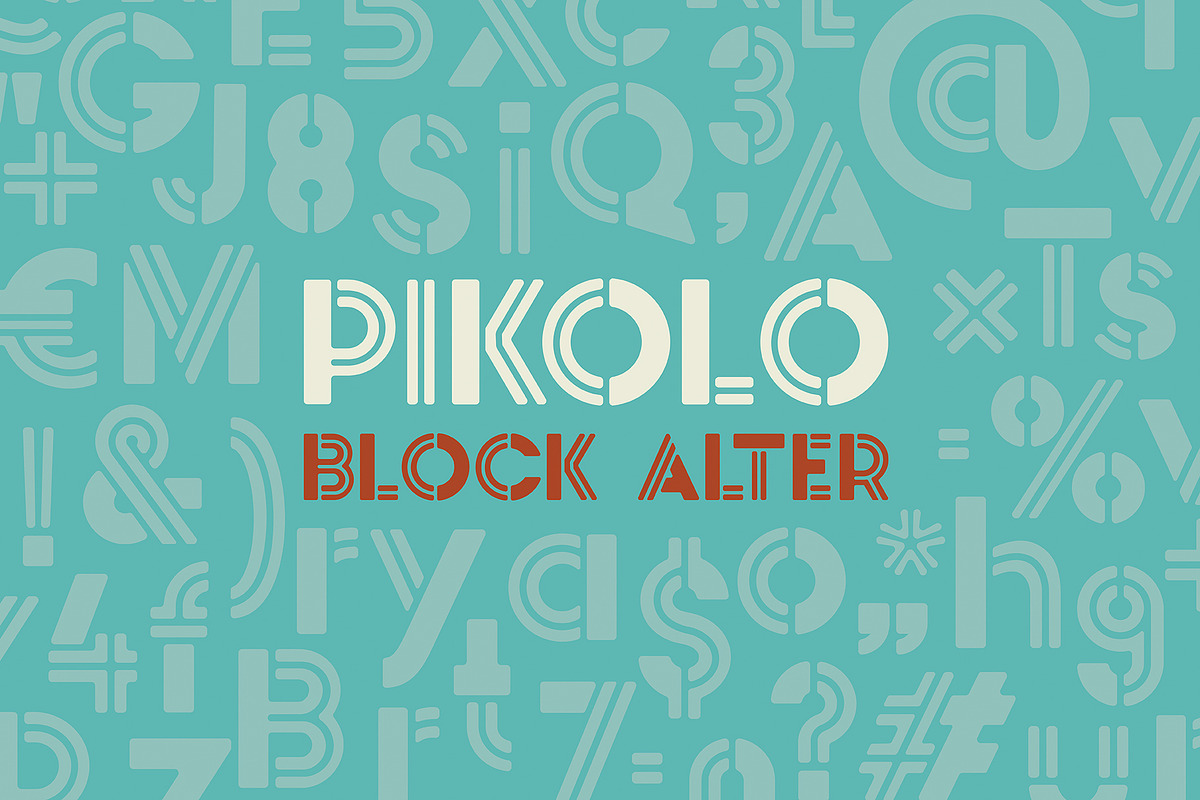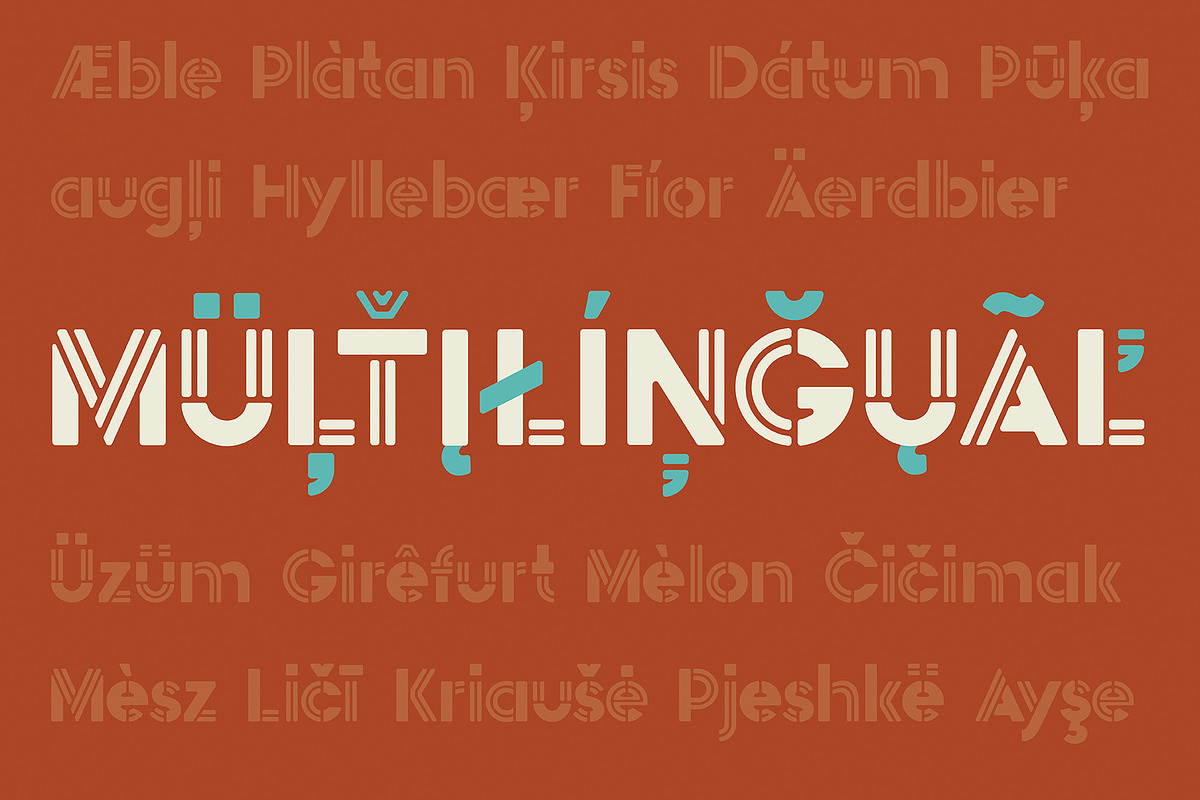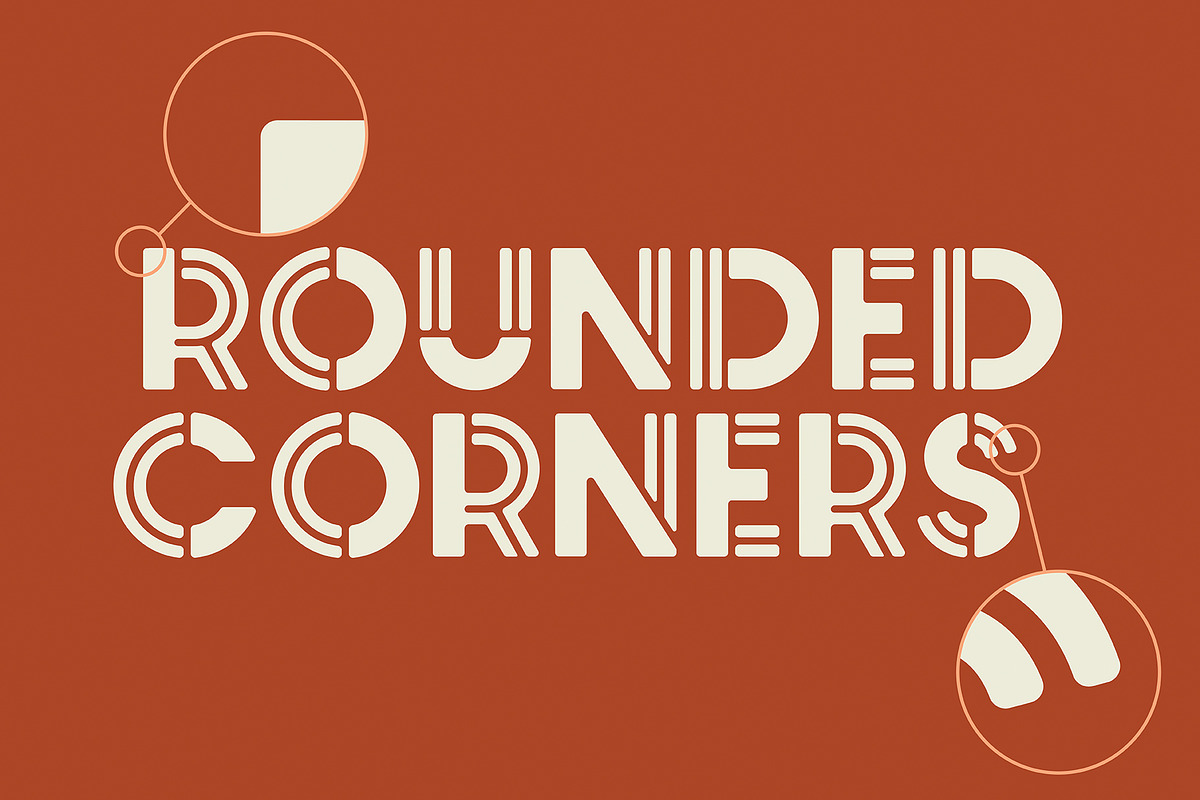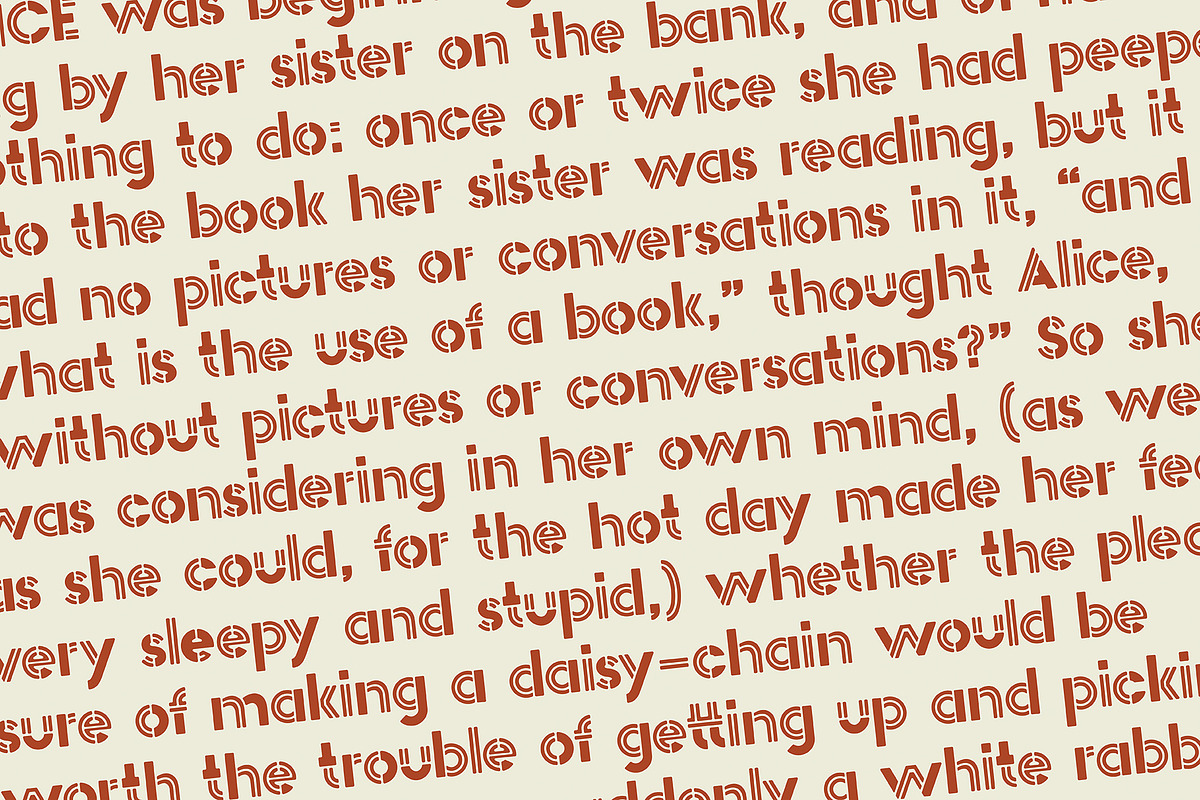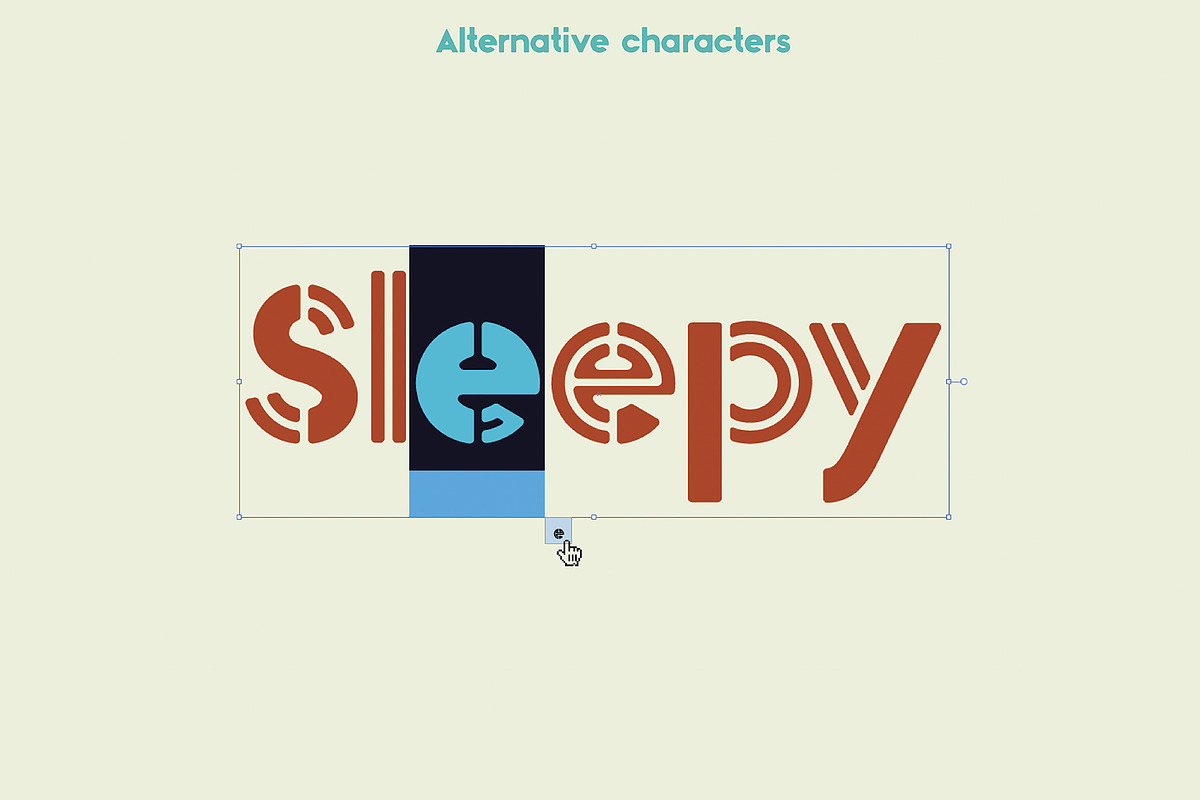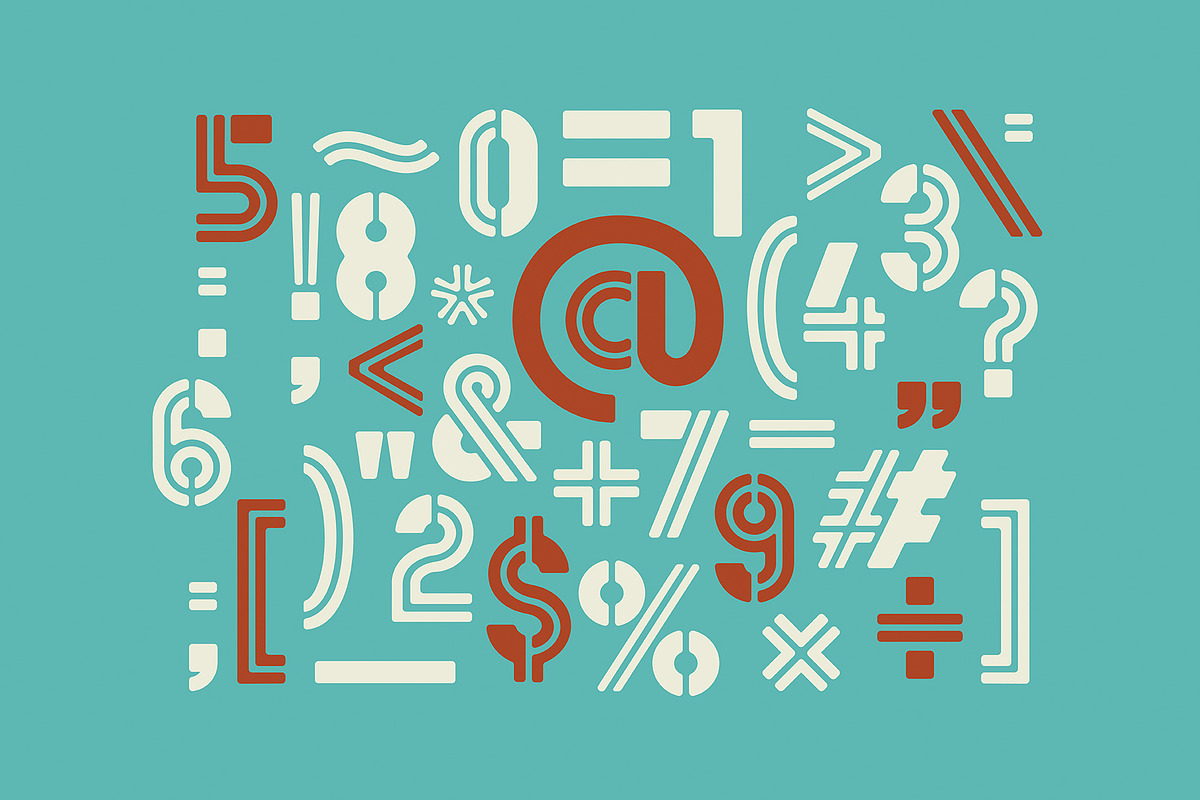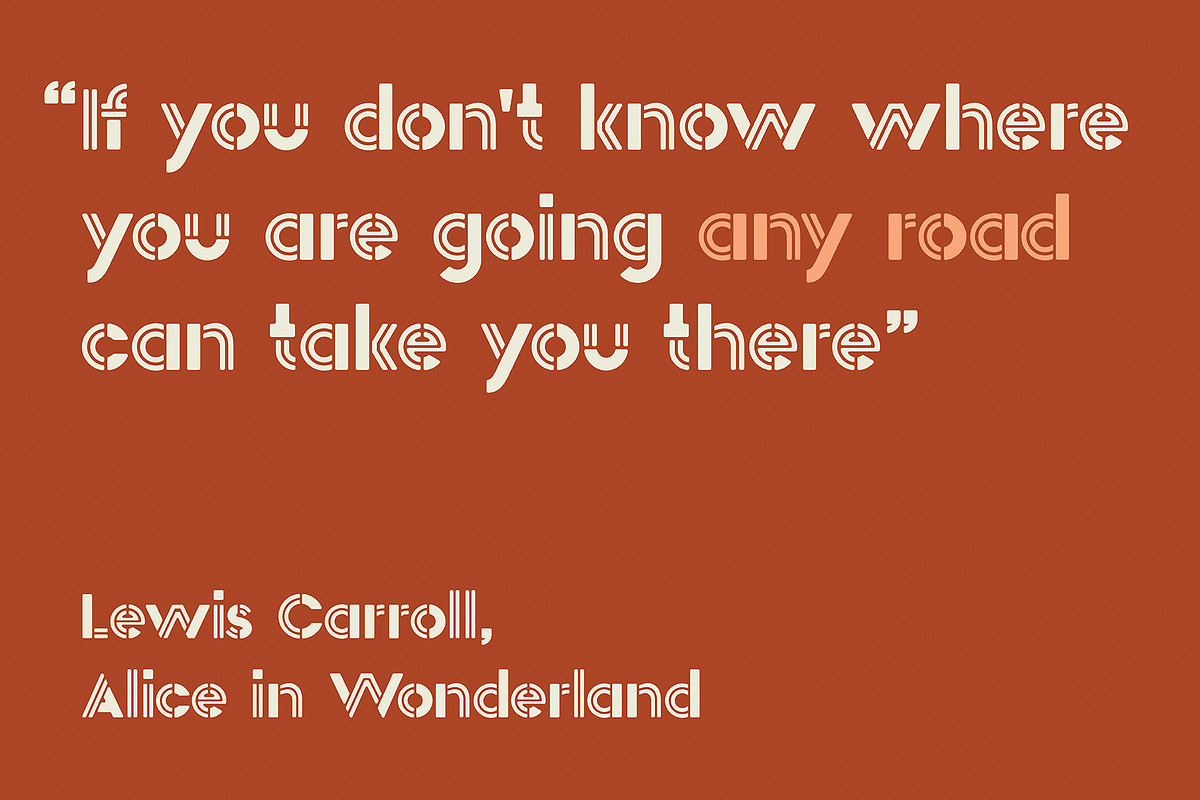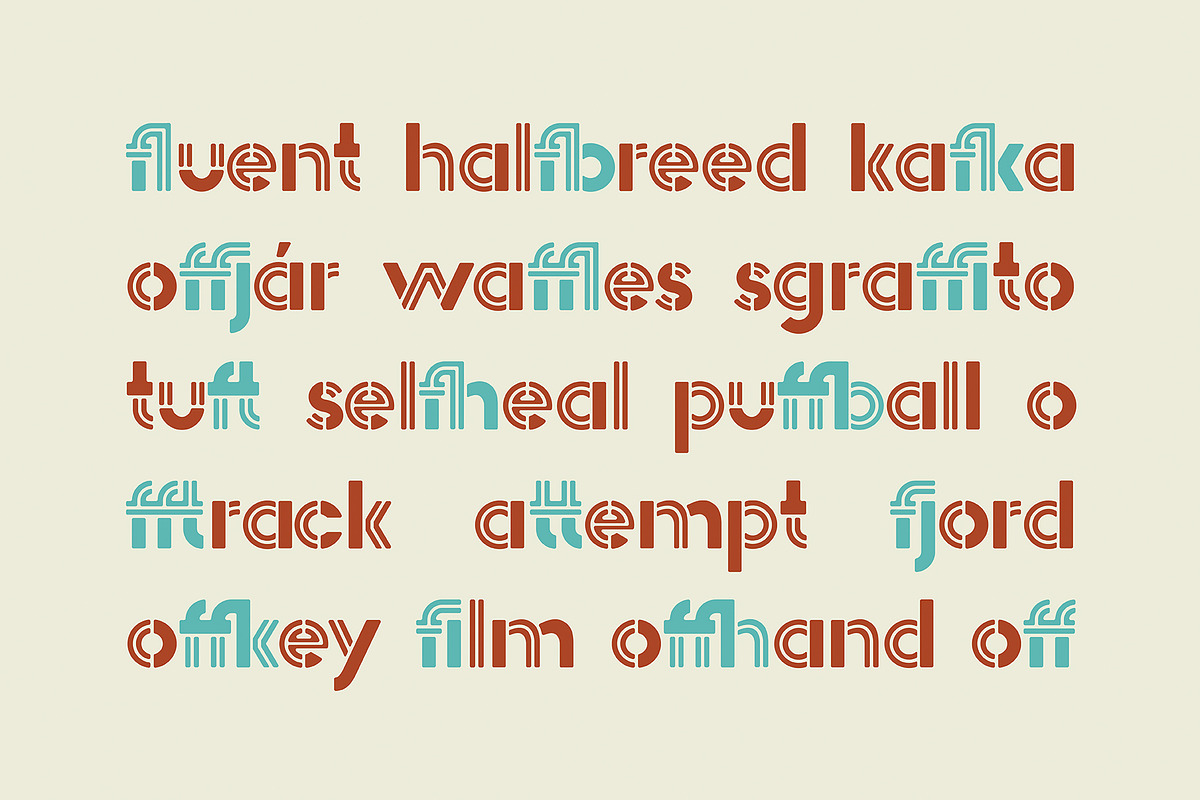
Pikolo Block Alter Font
Pikolo Block Alter is the fourth of the Pikolo font family inspired by vintage woodblock printing.
Pikolo Block Alt is a slightly rounded display typeface. The letters are made of separate blocks. It is a playful font, perfect for headings, logos and so much more! The font comes with full upper & lower case characters, numbers, symbols and includes the most common stylistic ligatures.
Every letter has an alternative variation that is accessible in the glyphs panel or can be selected in the on-canvas context menu in Adobe CC programs. Simply click the alternate glyph to replace the character with it.
Multilingual support, languages include: Dutch, Danish, Norwegian, Finish, Swedish, Icelandic, Estonian, Latvian, Lithuanian, German, Hungarian, French, Portuguese, Spanish, Italian, Bosnian, Croatian, Czech, Slovak.